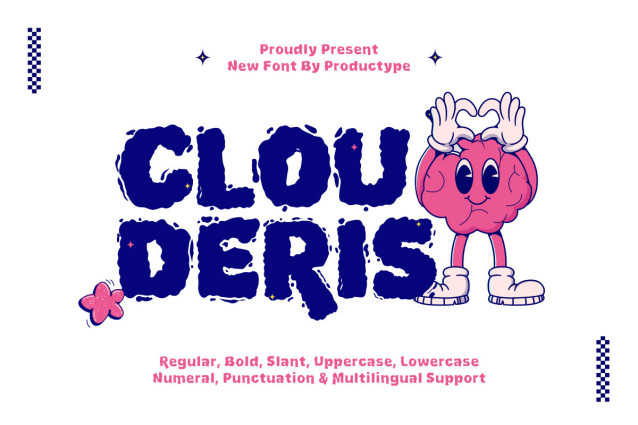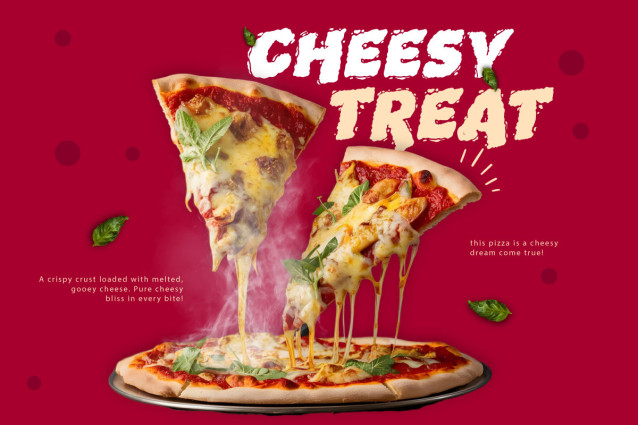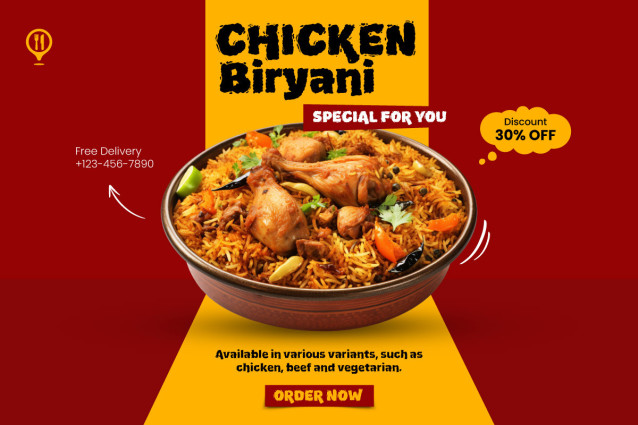
Clouderis Bubble Font
Clouderis Bubble Font is a fun and bouncy bubble-style font that brings a fresh, energetic vibe to your designs. Its bold, rounded letters with a playful texture make it perfect for eye-catching headlines, branding, merchandise, and creative projects. Whether you’re designing for posters, cartoons, games, or social media graphics, Cloudris adds a cheerful and friendly touch to your typography.